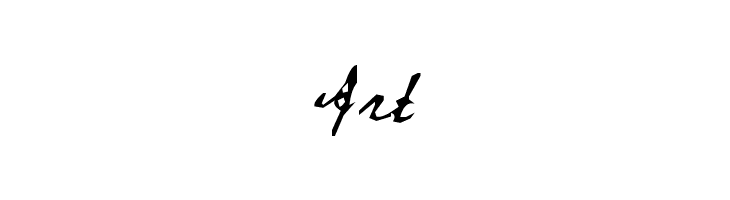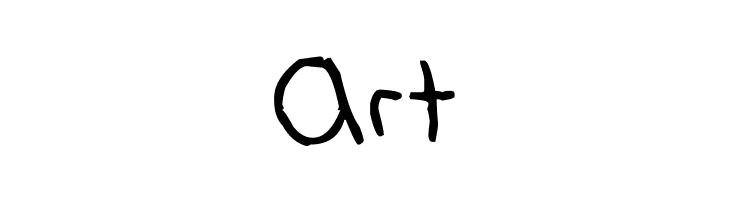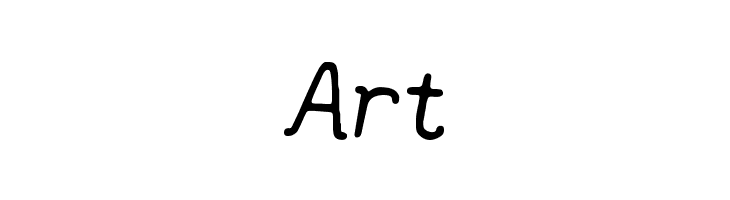
A playful, rounded font with a whimsical and friendly style.
An elegant, cursive font with intricate loops and flourishes.
A bold, playful handwritten font with rounded strokes and a dynamic slant.
A playful, bold font with rounded, whimsical letterforms.
Expressive handwritten style with fluid, dynamic strokes.
Expressive handwritten font with fluid, cursive strokes.
A dynamic, brush-style font with expressive strokes and fluid motion.
A playful, hand-drawn font with a whimsical and artistic style.